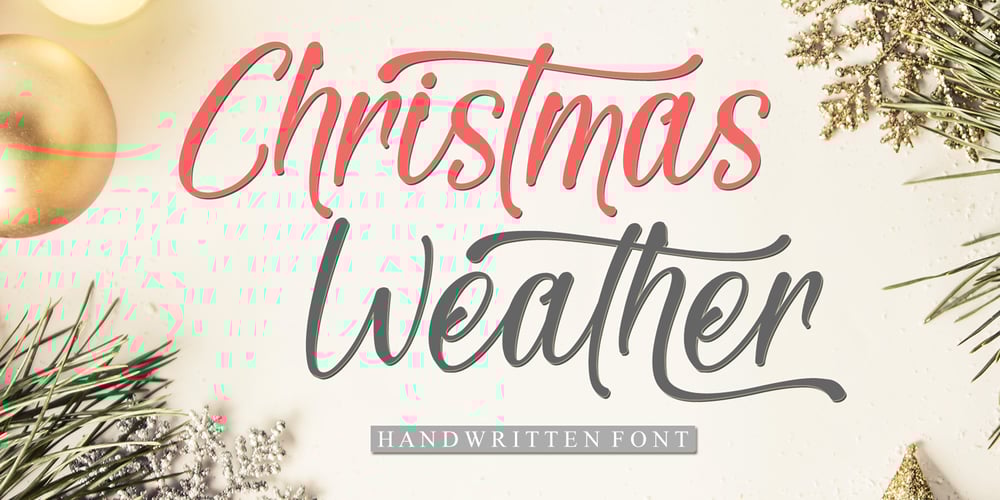
Christmas Weather Font Family was designed by Ahmad Afandi and published by Letterafandi Studio. Christmas Weather contains 2 styles and family package options. Christmas Weather is a stylish and incredibly elegant script font. It looks stunning on wedding invitations, thank you cards, quotes, greeting cards, logos, business cards and every other design which needs a handwritten touch.